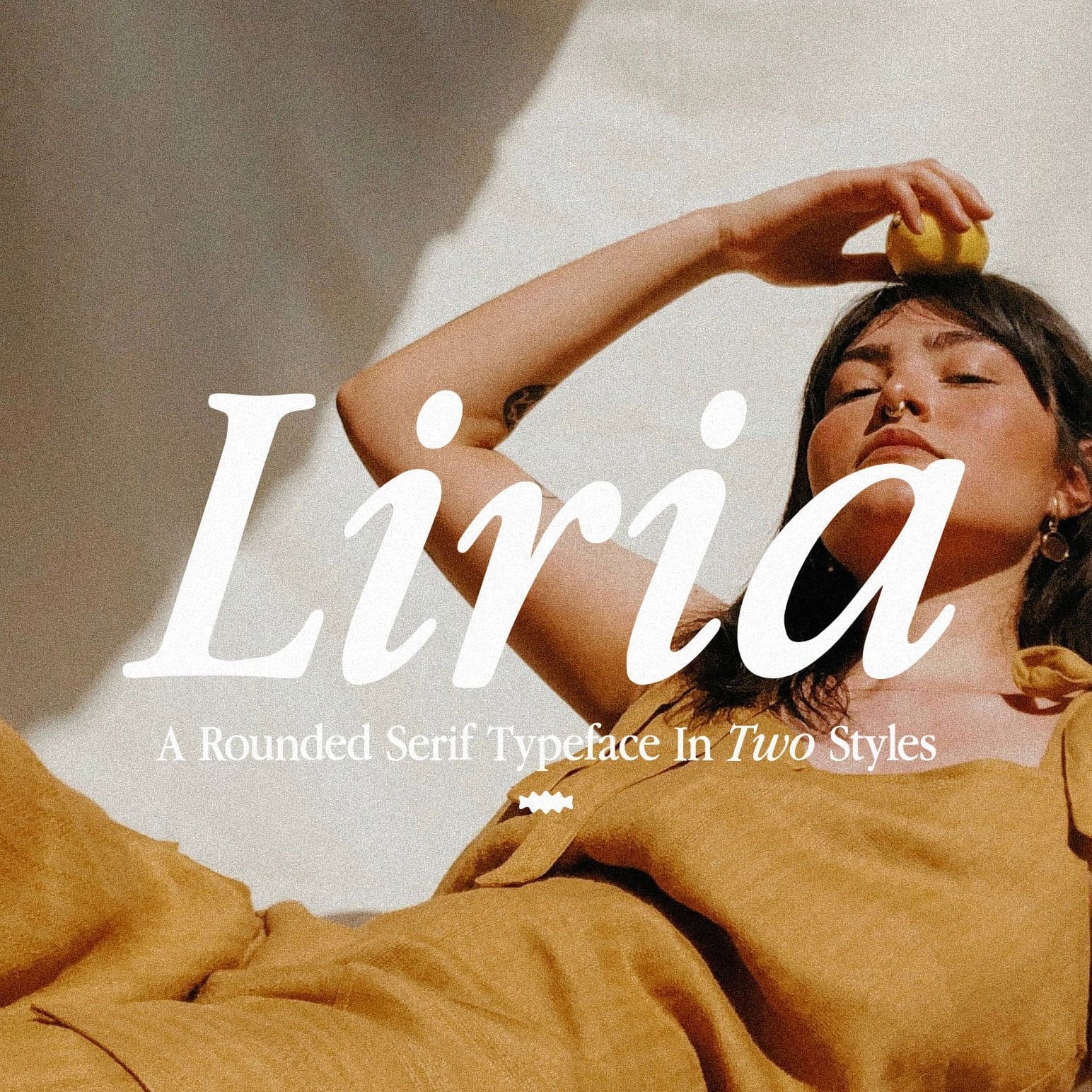
<p>Introducing Liria Serif Typeface</p> <p>Perfect for large headlines or body text, for print or web based projects.</p> <p>Have fun mixing Regular and Italic styles to add that 90s look to your designs.</p> <p><strong>Formats:</strong></p> <ul> <li>TTF</li> <li>WOFF</li> </ul> <p><strong>The typeface includes:</strong></p> <ul> <li>Liria Regular (uppercase & lowercase)</li> <li>Liria Italic (uppercase & lowercase)</li> <li>Numbers & punctuation</li> <li>Foreign language support</li> </ul>